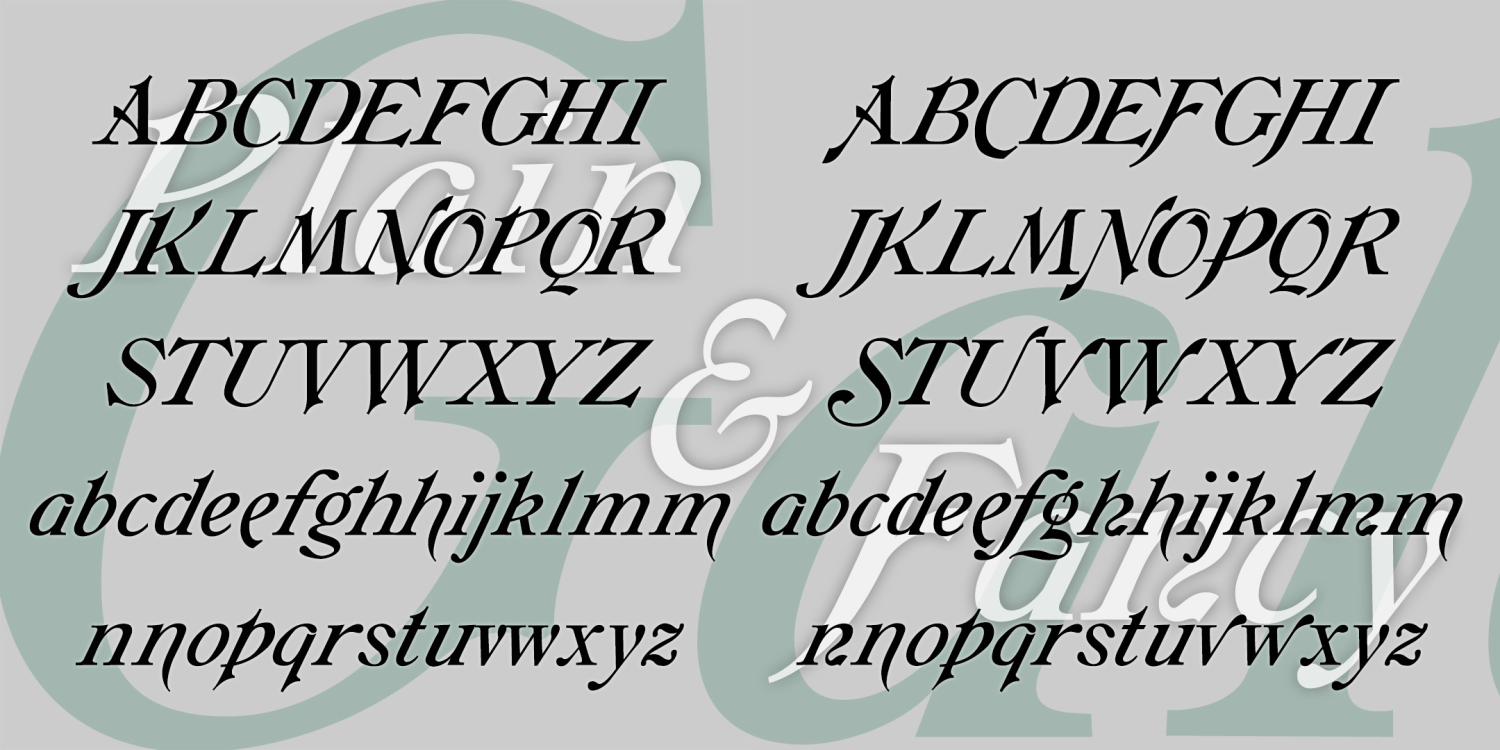
About Galathea
GALATHEA is an elegant italics-only font. My digital font was inspired by a 19th-century typeface from Schelter & Giesecke. After designing my version of Galathea, I found examples of another, very similar S&G font called “Italique Moyen-Age…